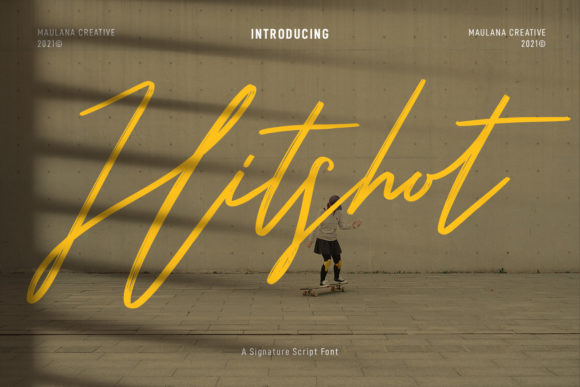
Hitshot Script: A Stylish Font for Creative Projects
Hitshot Script is a beautifully crafted font that brings elegance and sophistication to any design. With its flowing curves and refined style, itβs perfect for projects that require a personal or artistic touch. Whether you're designing wedding invitations, logos, or greeting cards, Hitshot Script adds a unique flair that stands out.
What Is Hitshot Script?
Hitshot Script is a stylish and elegant script font designed for versatility and visual appeal. It features a smooth, handwritten appearance that feels both professional and approachable. The font is ideal for situations where a more personalized look is needed, such as in branding, invitations, and creative content.
Key Features of Hitshot Script
- Stylish Design: The font has a graceful, cursive style that mimics handwriting.
- Versatile Use: It works well on a variety of media, including print and digital formats.
- Readability: Despite its script style, the font remains easy to read when used appropriately.
Why Different Audiences Care About Hitshot Script
The appeal of Hitshot Script varies depending on who is using it and for what purpose. Here's how different groups might find value in this font:
Beginners and Hobbyists
For those just starting out in design or typography, Hitshot Script can be an excellent choice. Its clean lines and elegant style make it easier to work with compared to more complex scripts. Beginners may appreciate how it adds a professional look to their projects without requiring advanced skills.
Creative Professionals and Designers
Designers often look for fonts that stand out while still maintaining readability. Hitshot Script offers a balance between creativity and usability. It's particularly useful for branding projects, where a unique font can help establish a memorable identity.
Entrepreneurs and Small Business Owners
Small business owners can benefit from using Hitshot Script in their marketing materials. Whether it's for logos, packaging, or promotional content, the font helps convey a sense of professionalism and attention to detail. It can also be used in social media posts or email campaigns to enhance brand recognition.
Marketers and Bloggers
Marketers and bloggers might use Hitshot Script in headlines or call-to-action sections to grab attention. The font's aesthetic quality makes it suitable for content that needs to feel inviting and visually appealing. It can be especially effective in niche markets where style plays a significant role in engagement.
Educators and Publishers
Educators might use Hitshot Script in classroom materials or presentations to add a creative element. Publishers could incorporate it into book covers or editorial designs to give them a more personal or artistic feel. The font's elegance can help create a welcoming atmosphere in educational settings.
How to Choose Hitshot Script for Your Needs
Selecting the right font depends on your specific goals and the context of your project. Here are some factors to consider:
Project Type and Purpose
If you're creating a wedding invitation, Hitshot Script's romantic and elegant style makes it a natural fit. For a business card, it can add a personal touch without being too casual. Consider how the font aligns with the overall message and tone of your project.
Skill Level and Ease of Use
Beginners may prefer fonts that are straightforward to use and don't require extensive customization. Hitshot Script is relatively easy to work with, making it accessible for those new to design software. More experienced users might appreciate its flexibility for advanced typographic treatments.
Practical Examples of Using Hitshot Script
Here are a few practical examples of how different people might use Hitshot Script in their work:
- Wedding Invitations: A couple designing their own invitations could use Hitshot Script for the names and dates, adding a personal and romantic touch.
- Business Cards: A small business owner might use the font for the company name or tagline to create a memorable first impression.
- Logos: A designer working on a logo for a boutique could choose Hitshot Script to reflect the brand's personality and style.
- Greeting Cards: An artist selling handmade cards might use the font to write messages or titles, enhancing the card's visual appeal.
Whether you're a beginner looking to add a personal touch to your designs or a professional seeking a versatile font for branding, Hitshot Script offers a range of possibilities. Its elegant style and adaptability make it a valuable tool for anyone aiming to create visually appealing content.